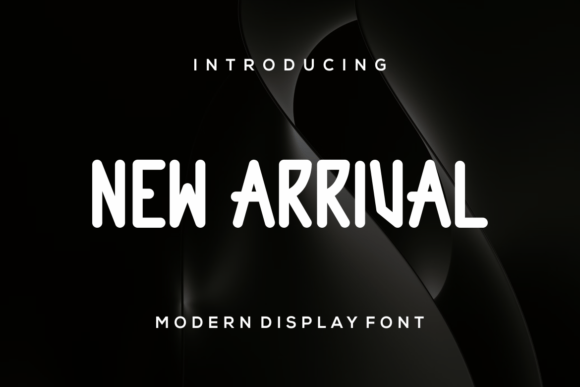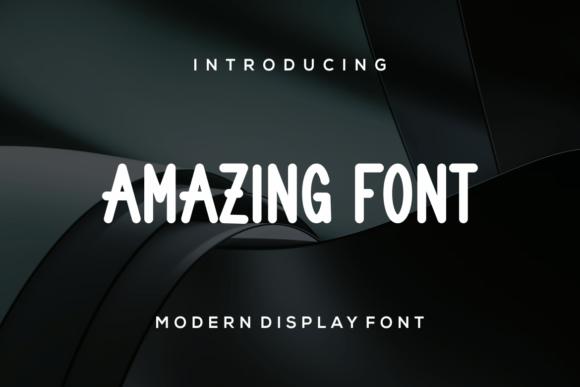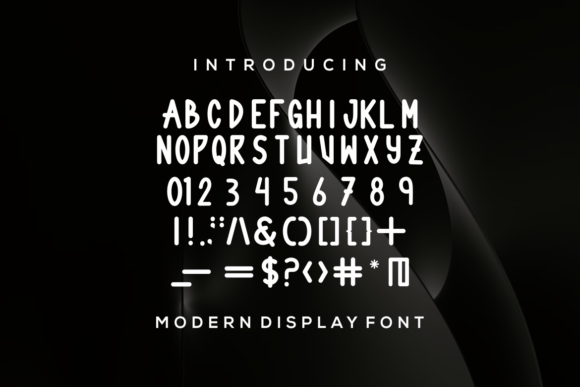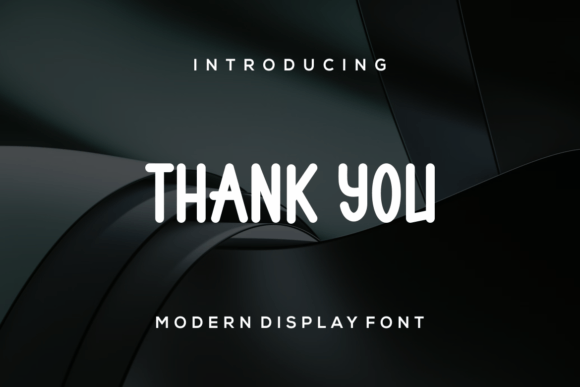
Introducing Agaiptex Font: The Modern Display Font You Need
In the world of design, a font can make or break a project. It’s the first thing people notice, and it can set the tone for your entire brand. That’s why we’re excited to introduce our new product: Agaiptex Font – a modern, bold, and authentic display font that’s perfect for any branding project. Whether you’re a designer, crafters, or entrepreneur, Agaiptex Font is the perfect addition to your toolkit.
What is Agaiptex Font?
Agaiptex Font is a carefully crafted display font that’s designed to make a statement. Its bold and authentic style makes it perfect for logos, t-shirt printing, creative products, and more. The font is versatile and can be used in a variety of contexts, from digital media to print materials.
Key Features of Agaiptex Font
- Bold and Authentic Style: Agaiptex Font has a unique and eye-catching style that’s sure to grab attention.
- Versatile: The font is perfect for a variety of projects, including logos, t-shirt printing, creative products, and more.
- Easy to Read: Despite its bold style, Agaiptex Font is easy to read, making it perfect for headlines, titles, and short paragraphs.
- High-Quality: Agaiptex Font is a high-quality font that’s designed to look great in any context.
Why Choose Agaiptex Font?
There are many fonts available, but Agaiptex Font stands out from the crowd. Here are just a few reasons why:
- Unique Style: Agaiptex Font has a unique style that’s sure to make your project stand out.
- Time-Saving: With Agaiptex Font, you can create professional-looking projects in no time.
Examples of Agaiptex Font in Action
Here are a few examples of what you can create with Agaiptex Font:
- Logos: Agaiptex Font is perfect for creating bold and eye-catching logos.
- T-Shirt Printing: The font is great for creating custom t-shirts, hoodies, and other apparel.
- Creative Products: Agaiptex Font can be used to create a variety of creative products, such as stickers, posters, and more.
| Font Name | Ambruuk Font |
| Author | agusbolang1616 |
In conclusion, Agaiptex Font is a modern, bold, and authentic display font that’s perfect for any branding project. Its unique style, versatility, and ease of use make it a must-have for designers and crafters. With Agaiptex Font, you can create professional-looking projects in no time. So why wait? Download Agaiptex Font today and start creating amazing projects!